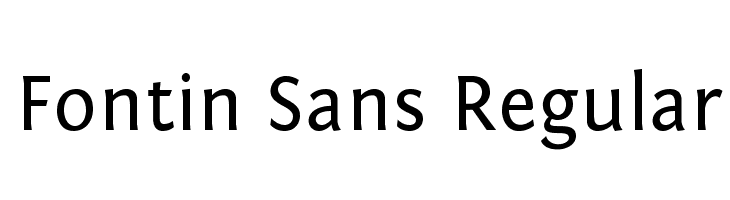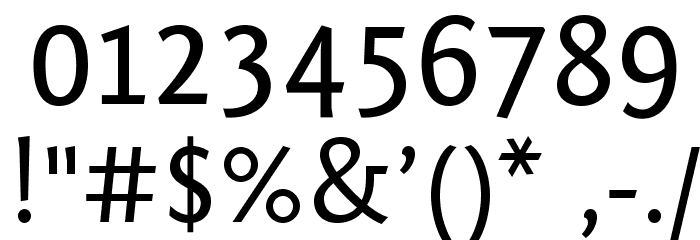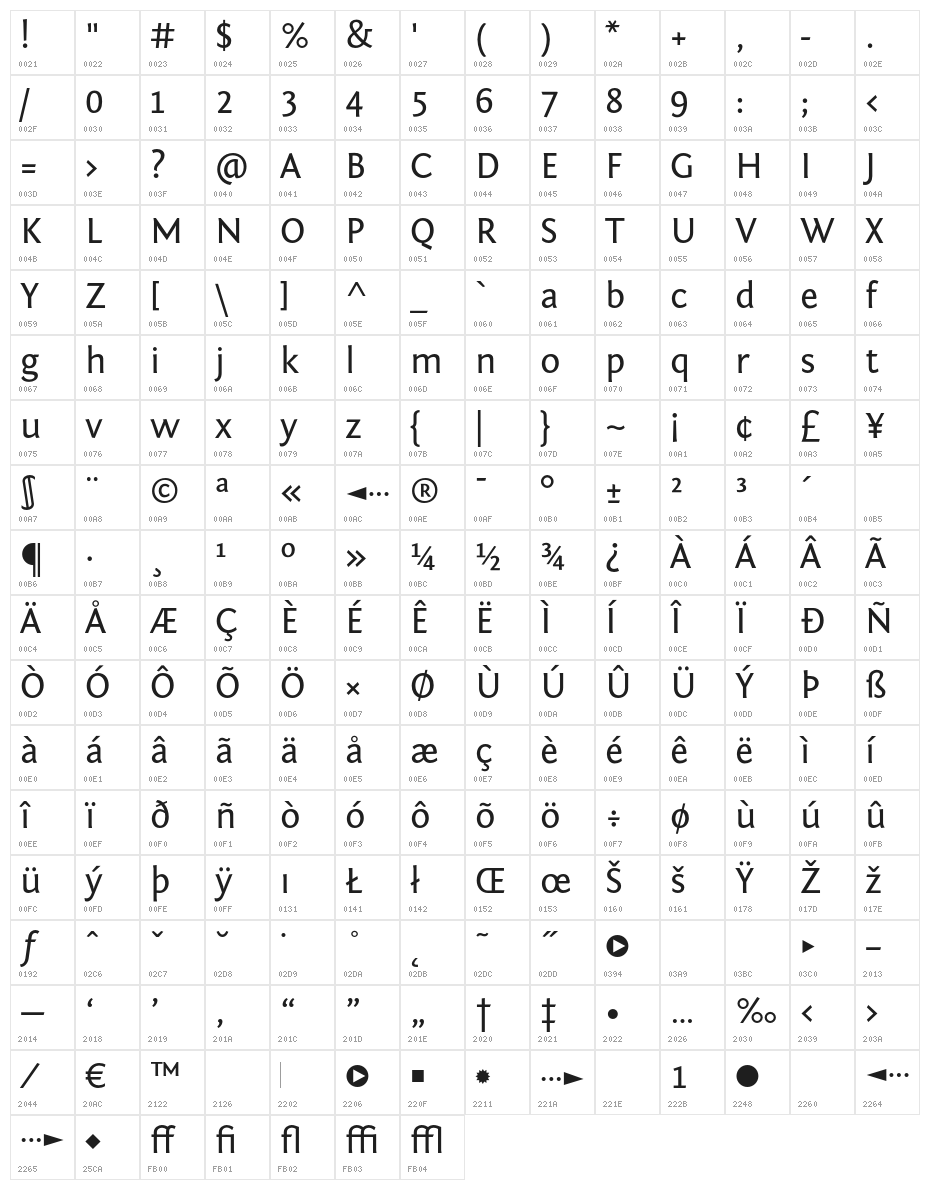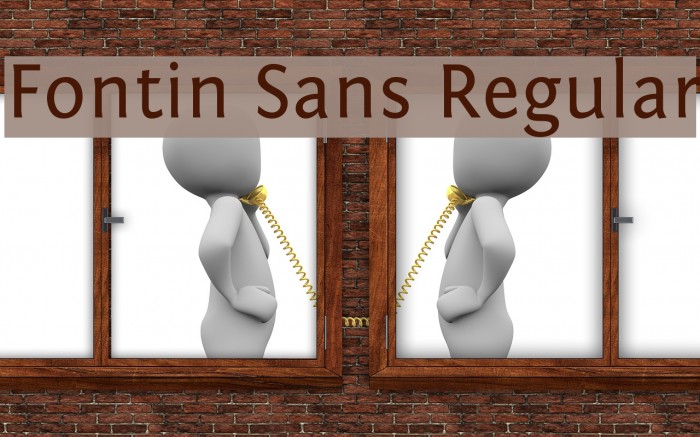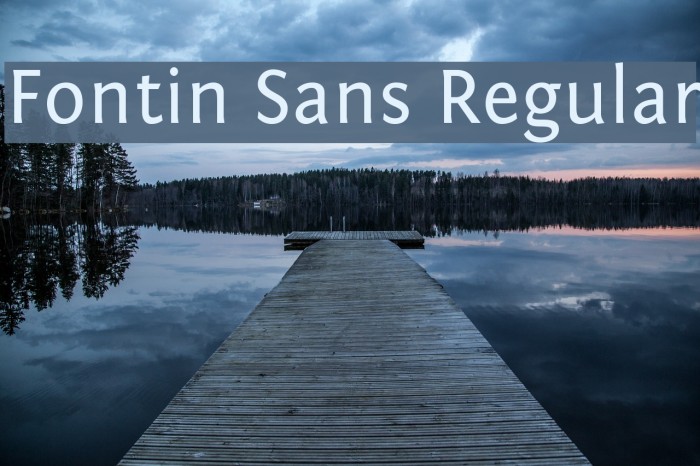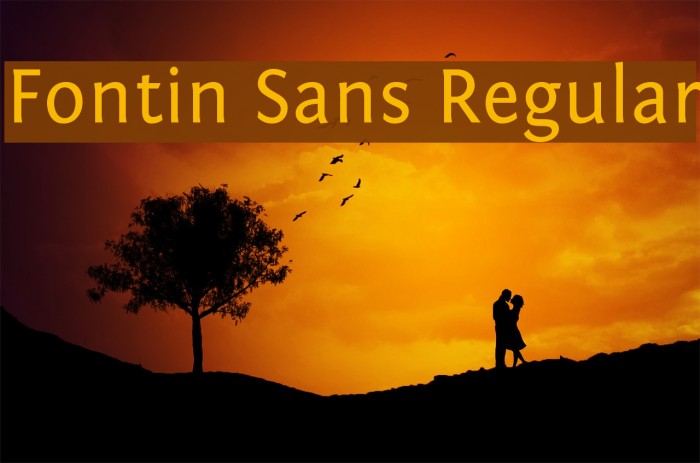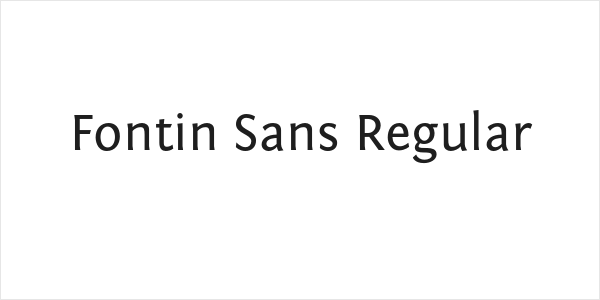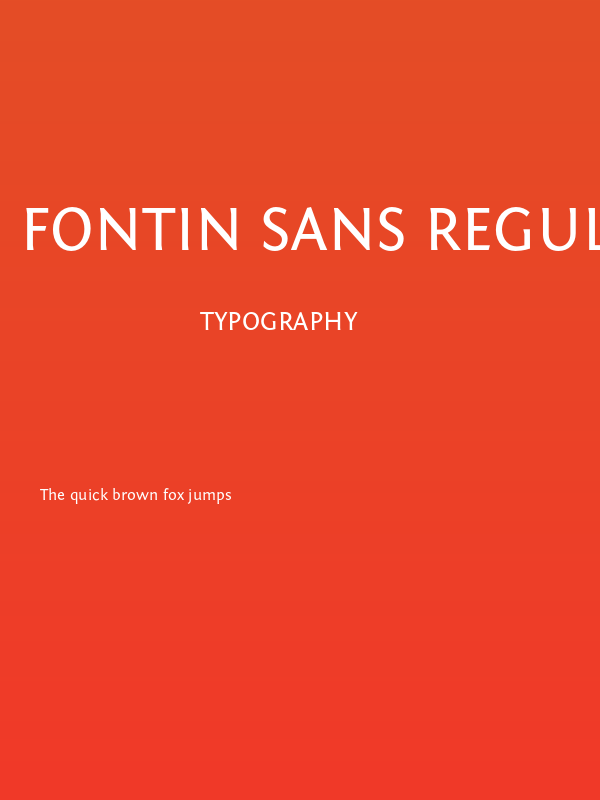
Fontin Sans Regular Font
Fontin Sans Regular Description
This font features a clean and modern sans-serif style, characterized by its balanced proportions and smooth curves. The uppercase letters are bold and assertive, while the lowercase letters maintain a friendly and approachable appearance. The numerals are clear and easy to read, making them suitable for various applications. Special characters are well-defined, enhancing the font's versatility. Its overall design is both functional and aesthetically pleasing, making it a great choice for contemporary design projects.
| Proposed Projects | Ideal for branding, web design, advertising, and editorial projects. |